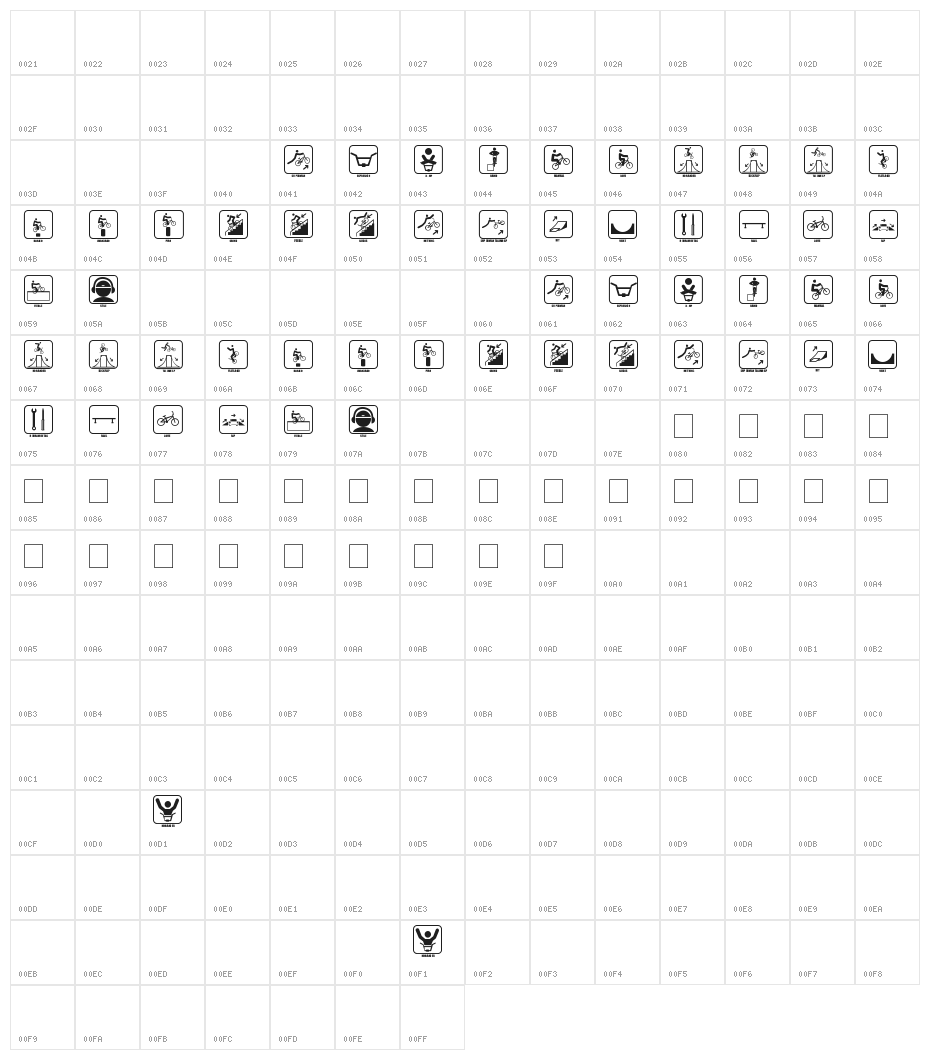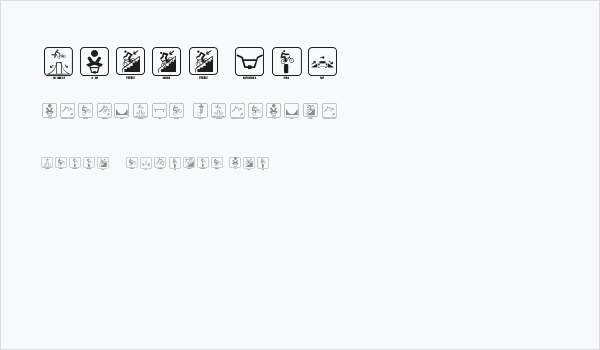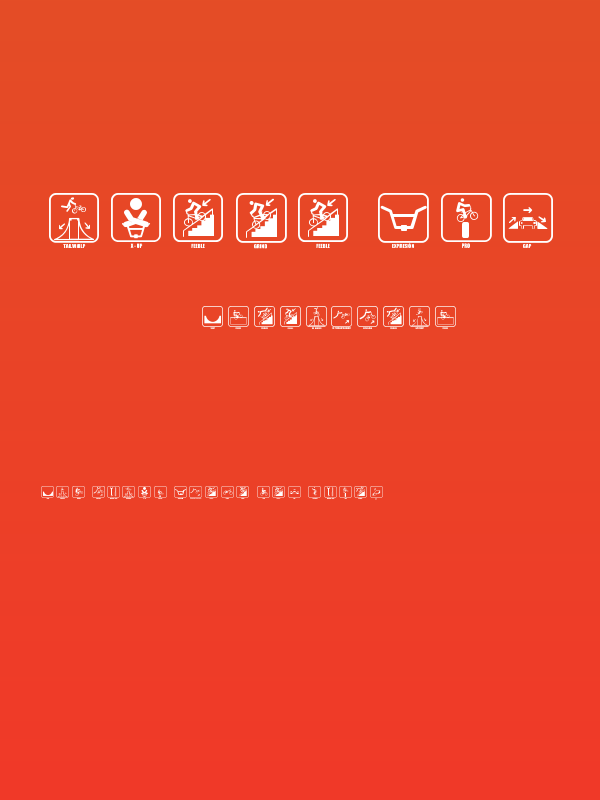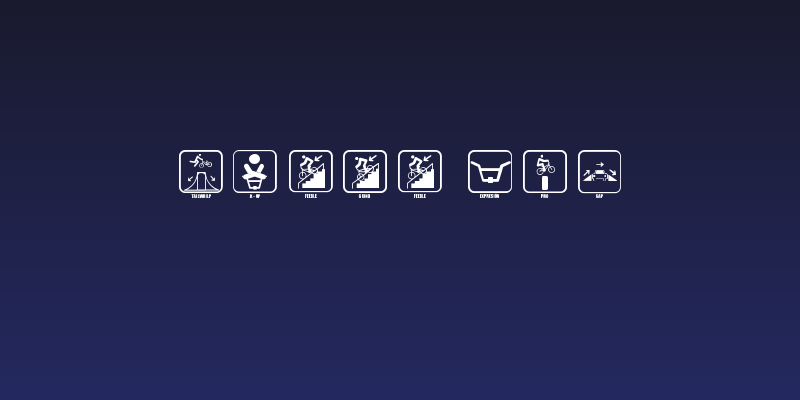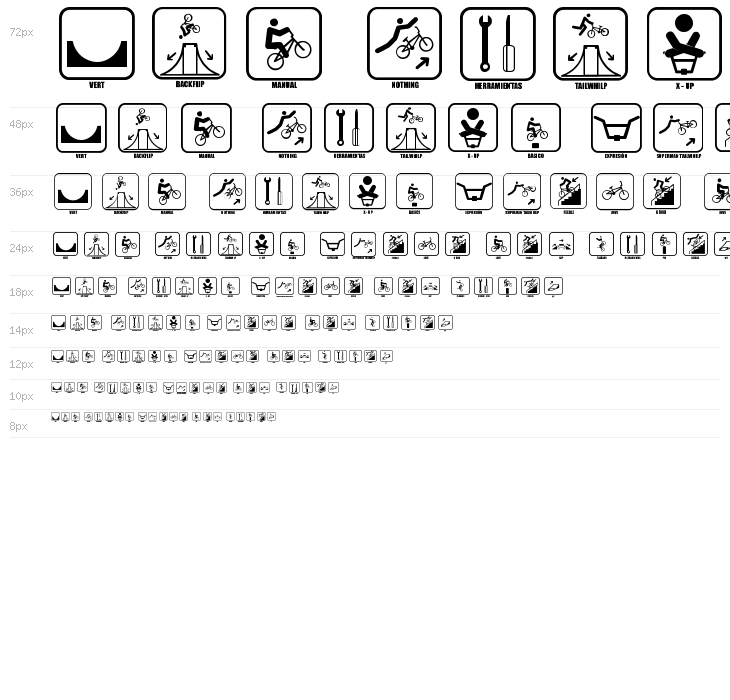
ICONO BMX Font
ICONO BMX Description
A decorative dingbat font consisting of BMX and cycling-themed pictograms, each enclosed in a rounded square border. The icons are bold, simple, and highly stylized, representing various BMX tricks, equipment, and related symbols.
| Overall Style | Decorative, Modern, Thematic |
| Use Case | Icons, Infographics, Themed designs, Posters |
| Proposed Projects | Sports event posters, instructional graphics, infographics, signage, themed apparel, and digital stickers. |